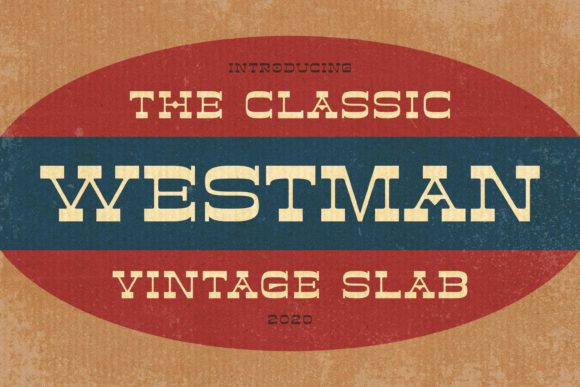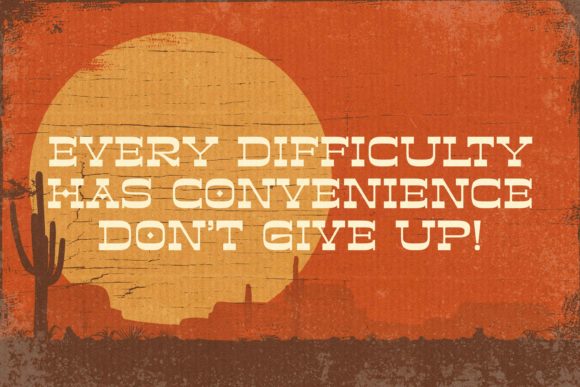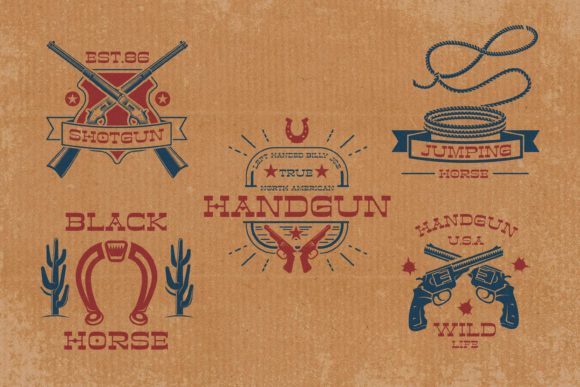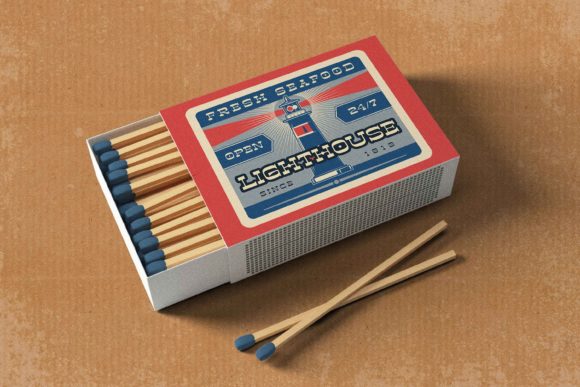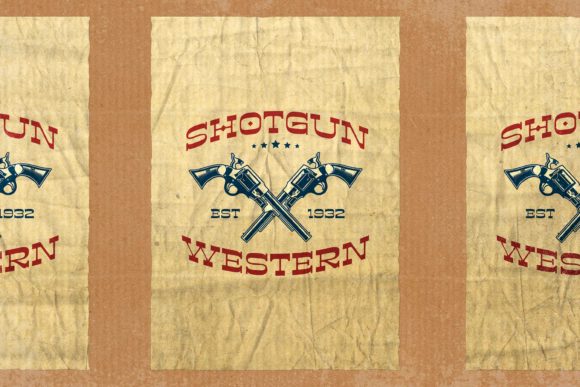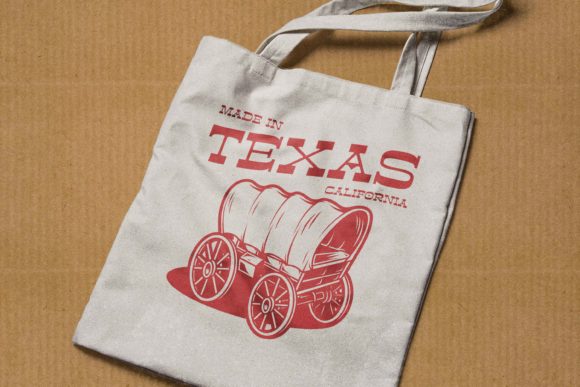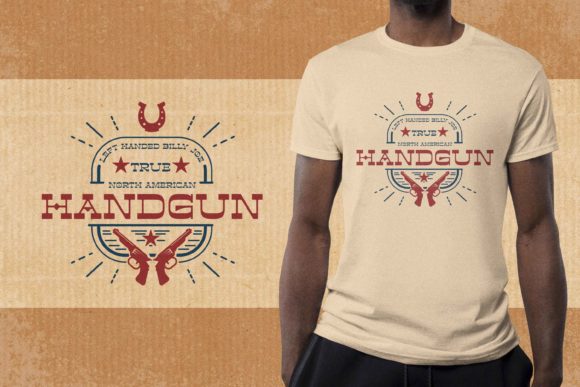
Westman: A Bold and Vintage-Styled Slab Serif Font
Westman is a striking slab serif font that combines bold design with a vintage aesthetic. This typeface offers designers a powerful tool for creating impactful typography with a classic touch, suitable for a wide range of design projects.
Key Features of Westman
- Bold Design: Features a strong, eye-catching appearance that commands attention
- Vintage Style: Incorporates a classic, retro aesthetic for a timeless appeal
- Slab Serif Structure: Includes the characteristic thick, rectangular serifs typical of slab serif fonts
- Classic Touch: Offers a nod to traditional typography while maintaining modern usability
- Versatile Application: Adaptable to a variety of design ideas and contexts
Ideal Uses for Westman
Westman’s unique characteristics make it particularly well-suited for:
- Vintage-inspired branding and logo design
- Poster and advertisement layouts with a retro feel
- Book covers and editorial designs
- Packaging design for products with a classic aesthetic
- Signage and environmental graphics
When incorporating Westman into your designs, consider the following tips:
- Use for headlines or short blocks of text to maximize its bold impact
- Pair with simpler sans-serif fonts for body text to create contrast
- Experiment with different sizes to highlight the font’s vintage details
- Consider using it in projects where you want to evoke a sense of nostalgia or timelessness
Westman is an excellent choice for designers looking to add a bold, vintage-inspired slab serif to their typographic toolkit. Its classic touch and versatile nature make it stand out in the world of typography. Whether you’re working on logo designs, creating eye-catching poster designs, or developing branding for projects that require a timeless aesthetic, Westman offers the perfect blend of boldness and vintage charm.
Explore how Westman can bring a bold and classic edge to your design projects. From retro-inspired branding to impactful editorial layouts, this font provides the tools to create striking and memorable typography that captures the essence of vintage design with a modern twist.